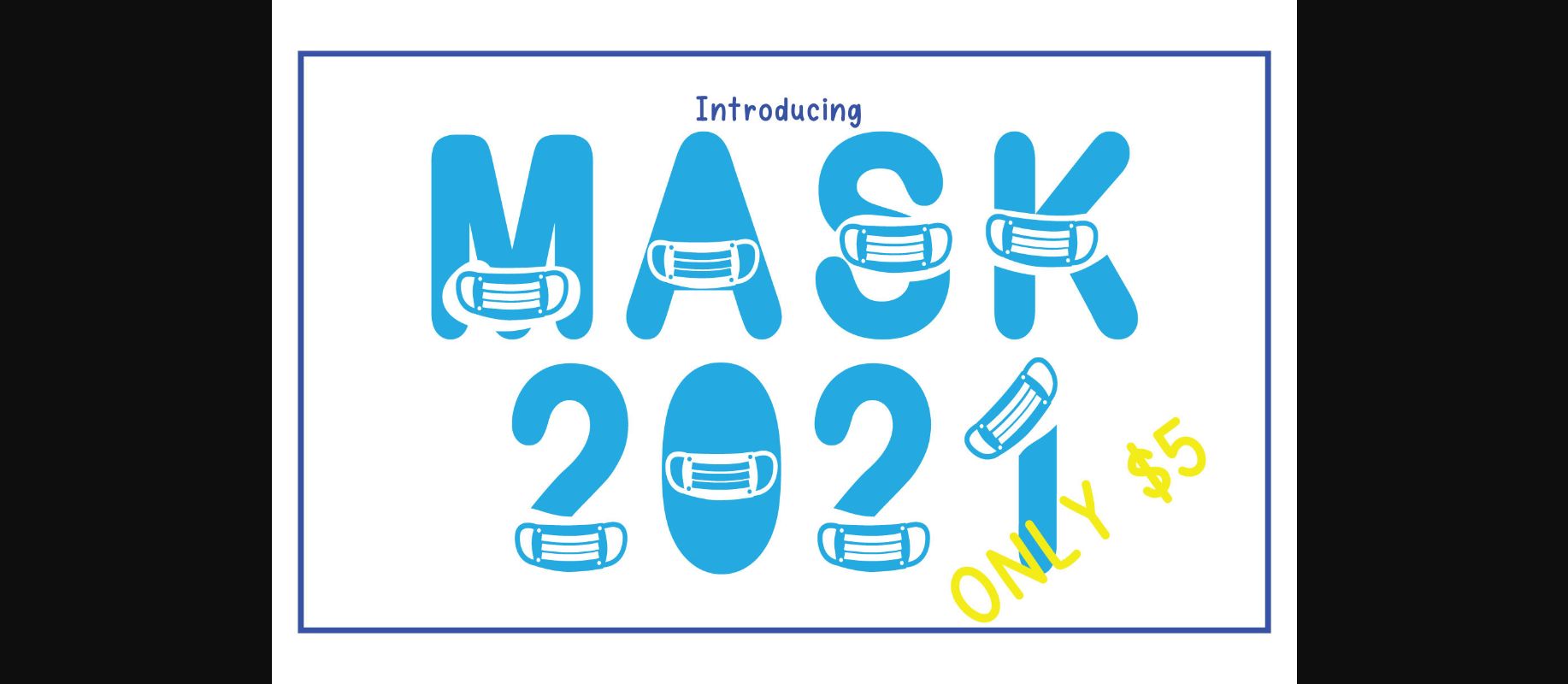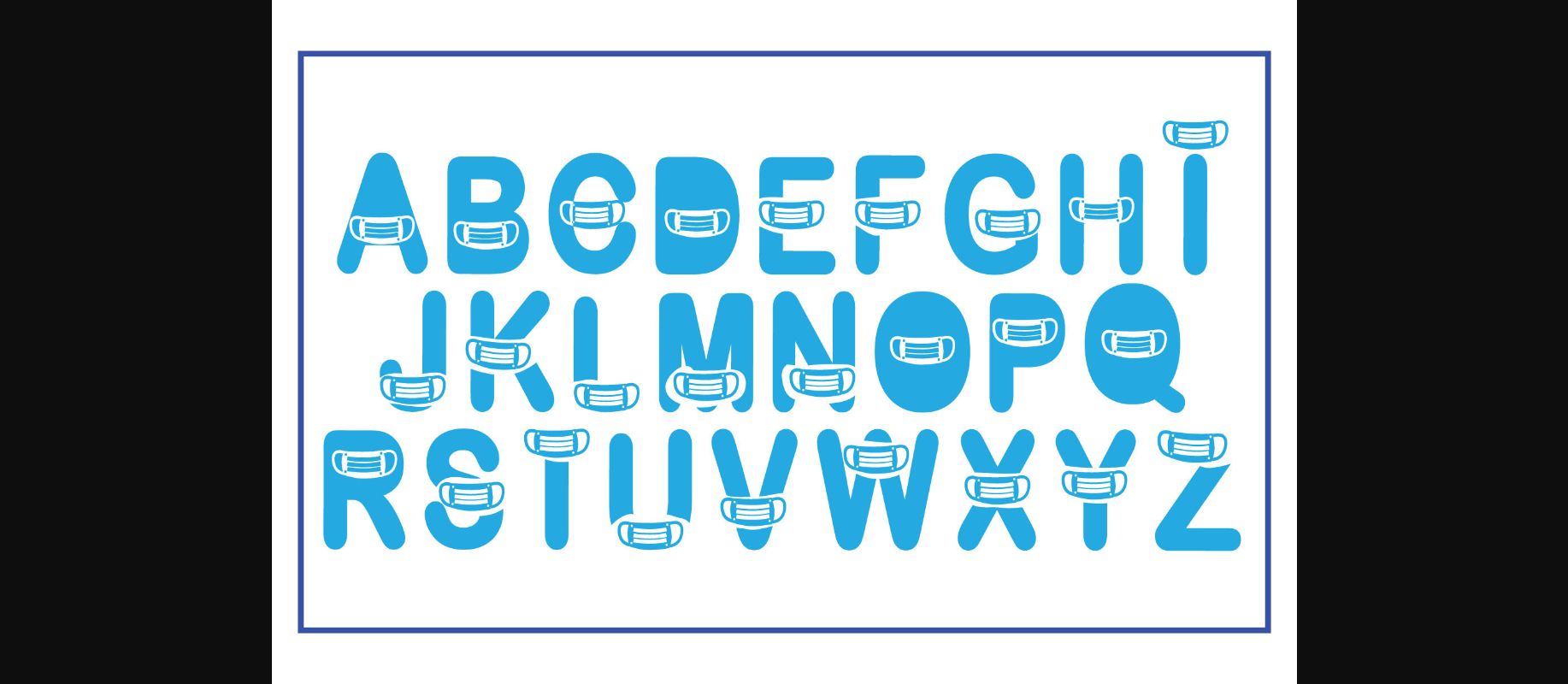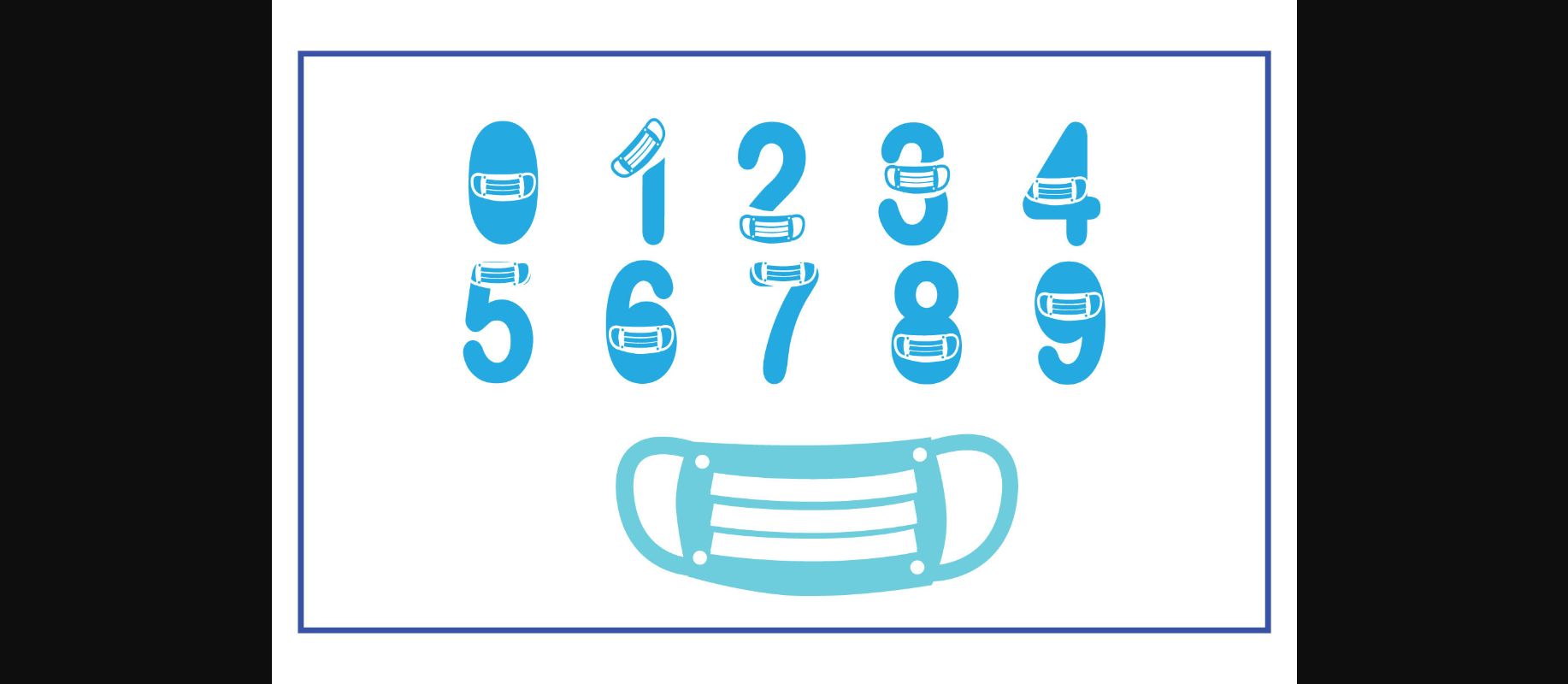
Mask 2021 Font
About Mask 2021 Font
Mask 2021 is a cool and assertive decorative font. It will look stunning on any poster, flyer, headline, booklet, or any other creation that needs to emphasize the use of face masks.